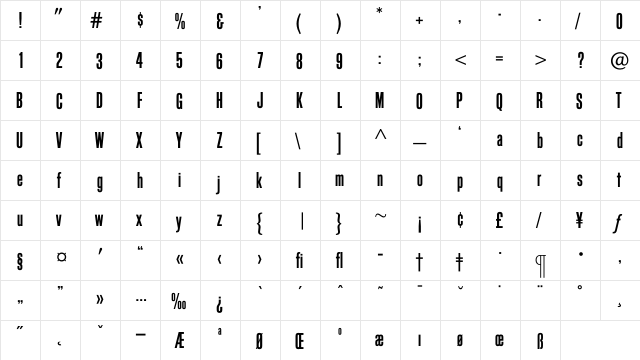
BlockGothicDemiExtraCond Regular
Design Context for BlockGothicDemiExtraCond Typeface
BlockGothicDemiExtraCond has the quiet confidence of well-executed sans-serif typography: versatile, unobtrusive, and dependable at any size. The condensed width makes it efficient for tight spaces without sacrificing legibility.
Dating back to 1993, this typeface is available in OpenType (OTF) format.
Font Pairing: Works well alongside a characterful serif or display font that can carry the expressive load while BlockGothicDemiExtraCond handles the functional copy.
Pro Tip: Try BlockGothicDemiExtraCond in all-caps with moderate tracking for navigation and label copy — it performs well in systematic UI contexts.